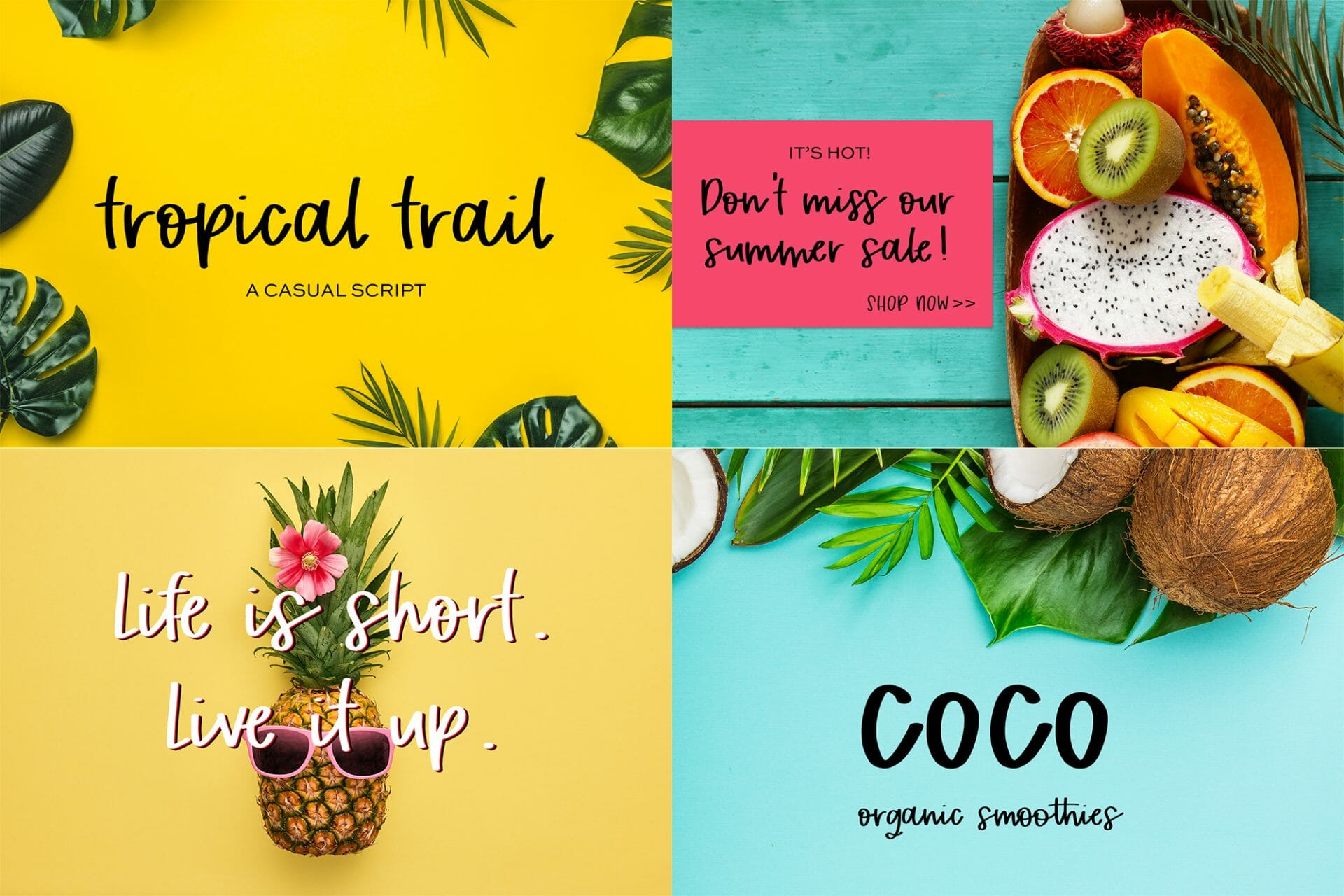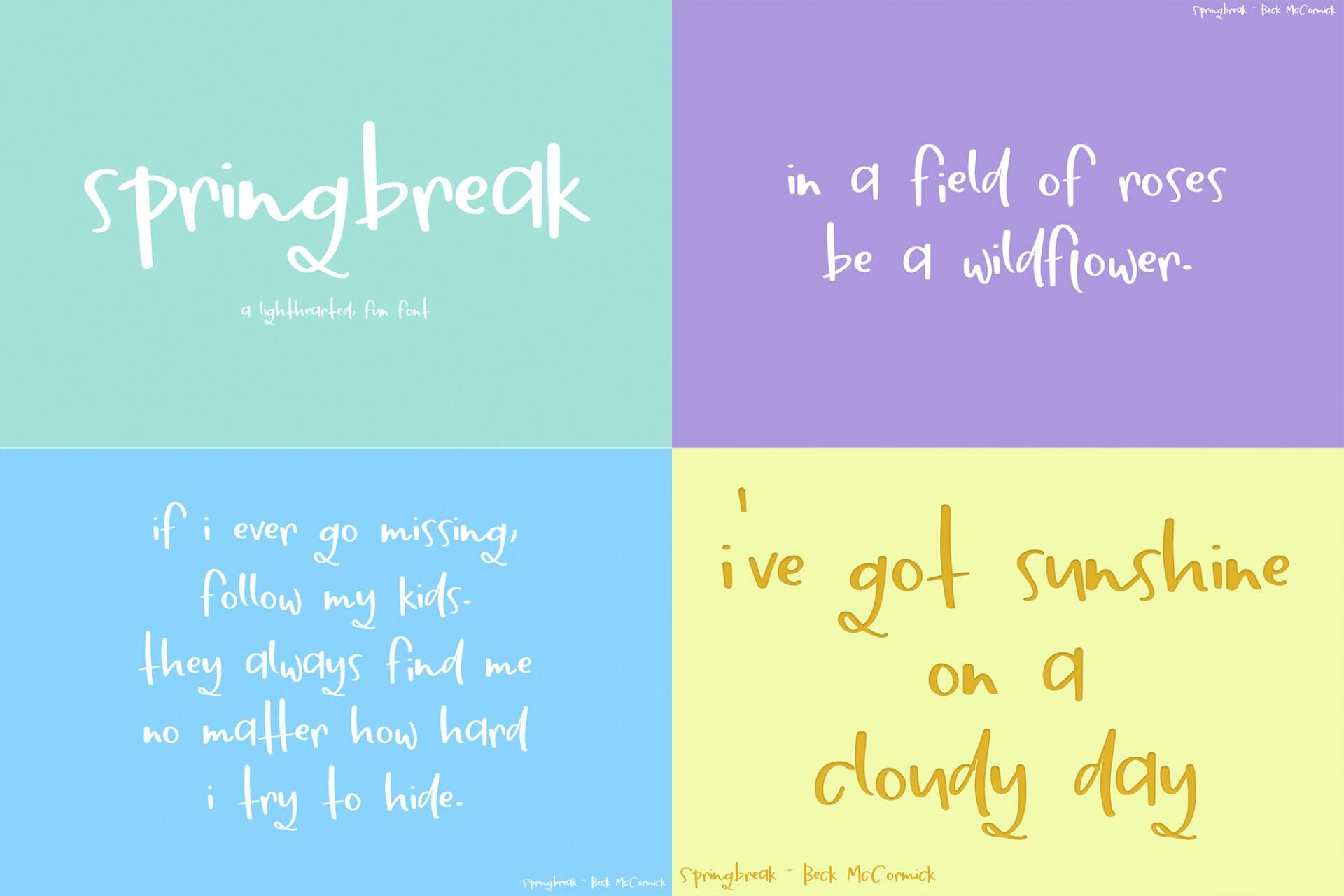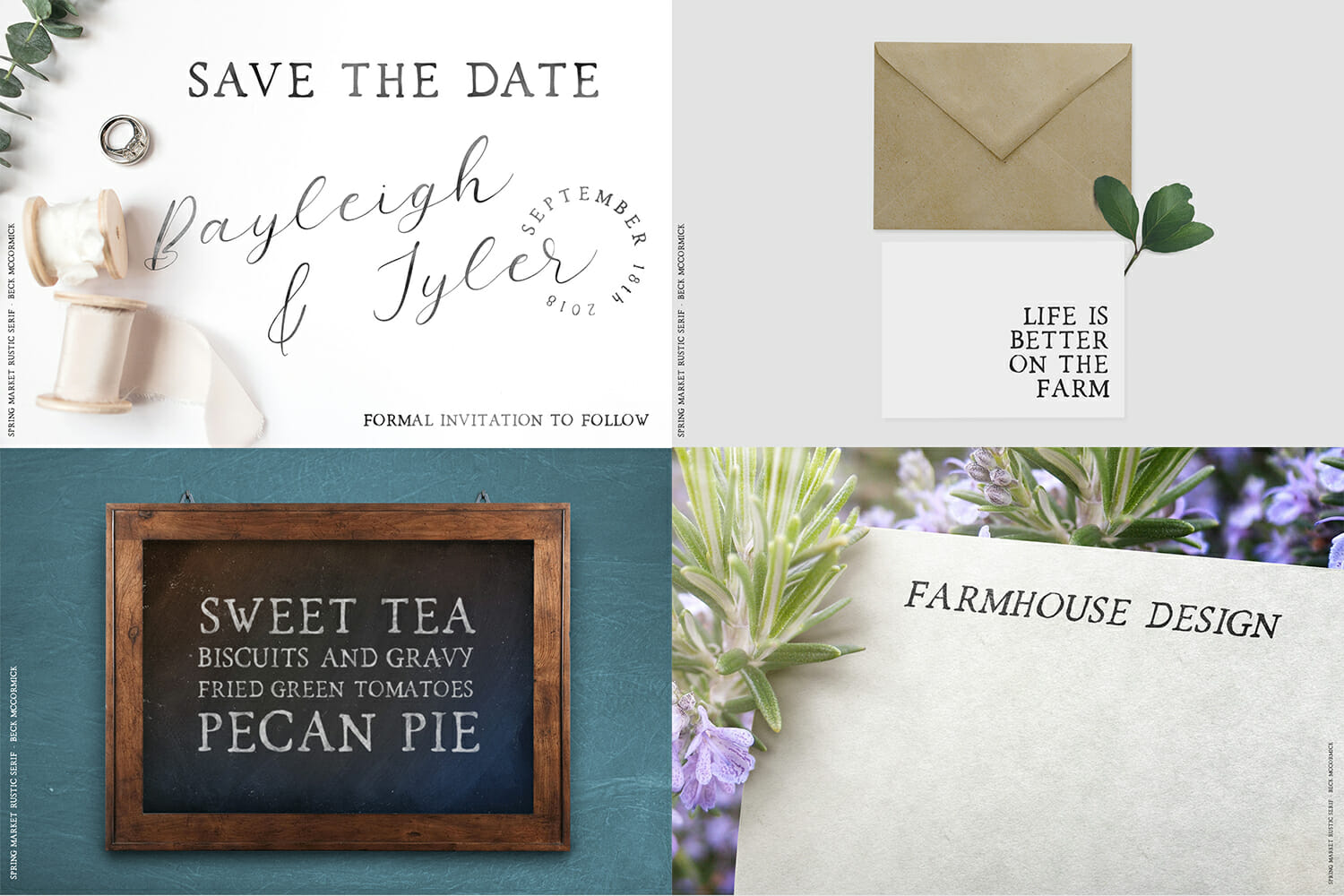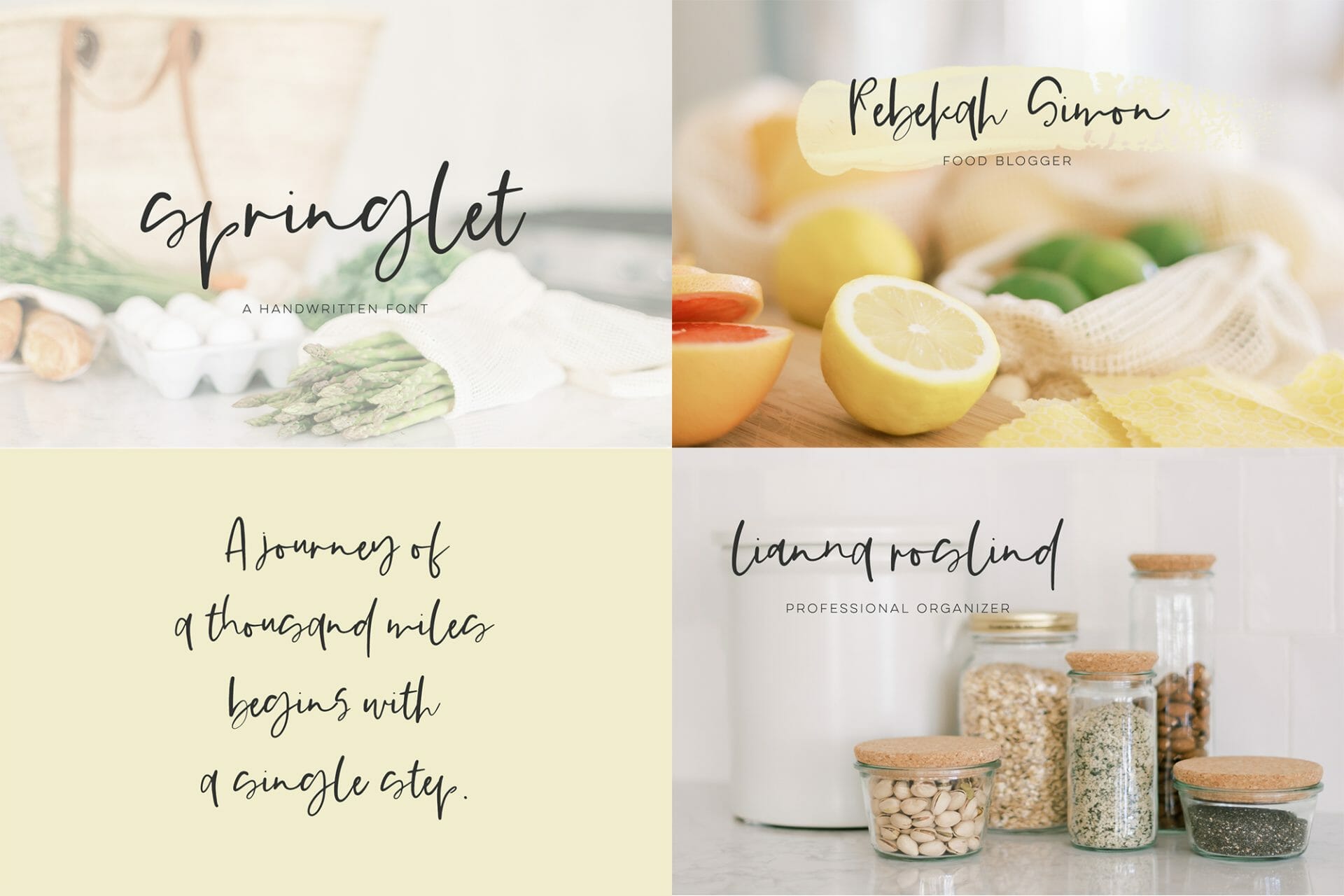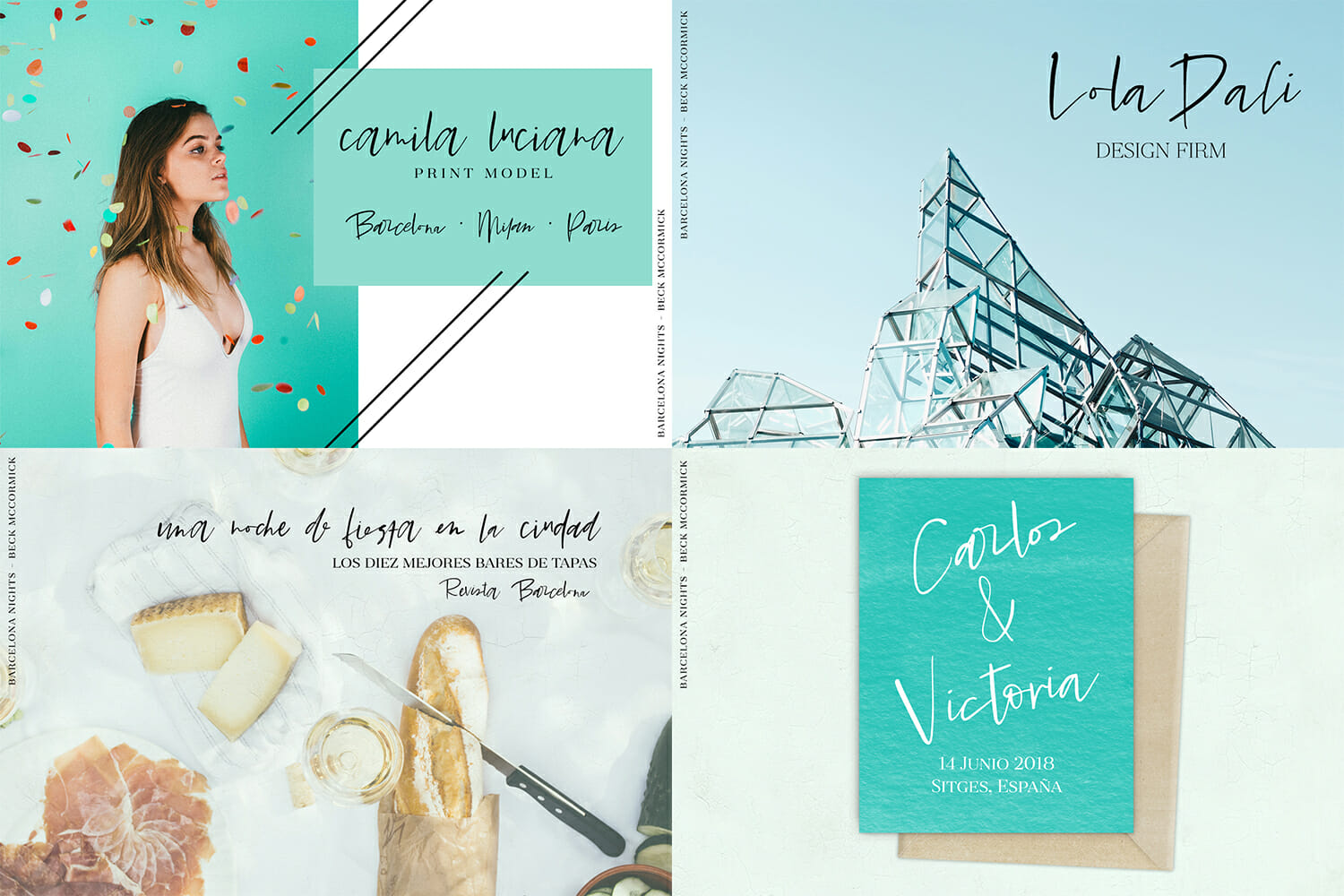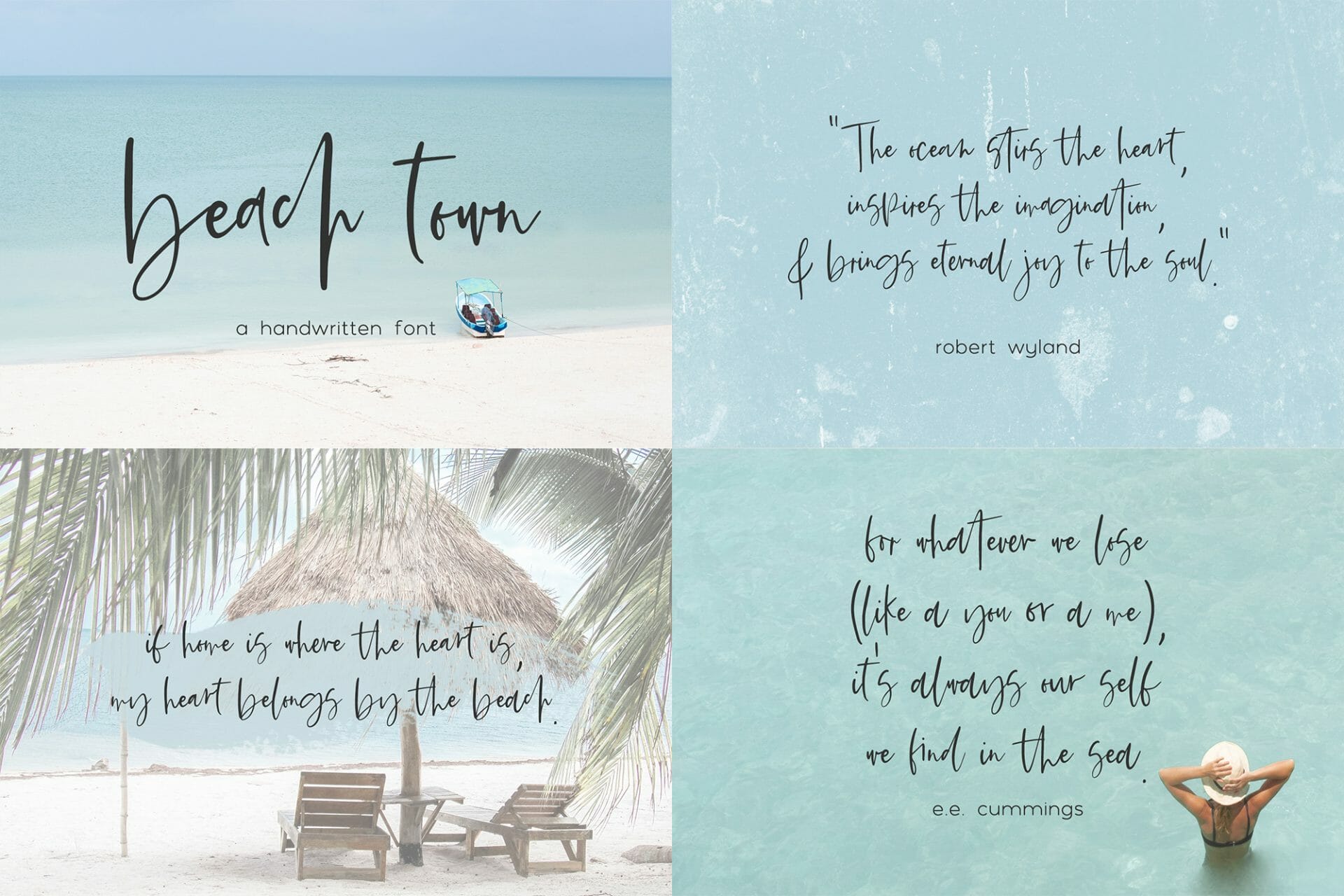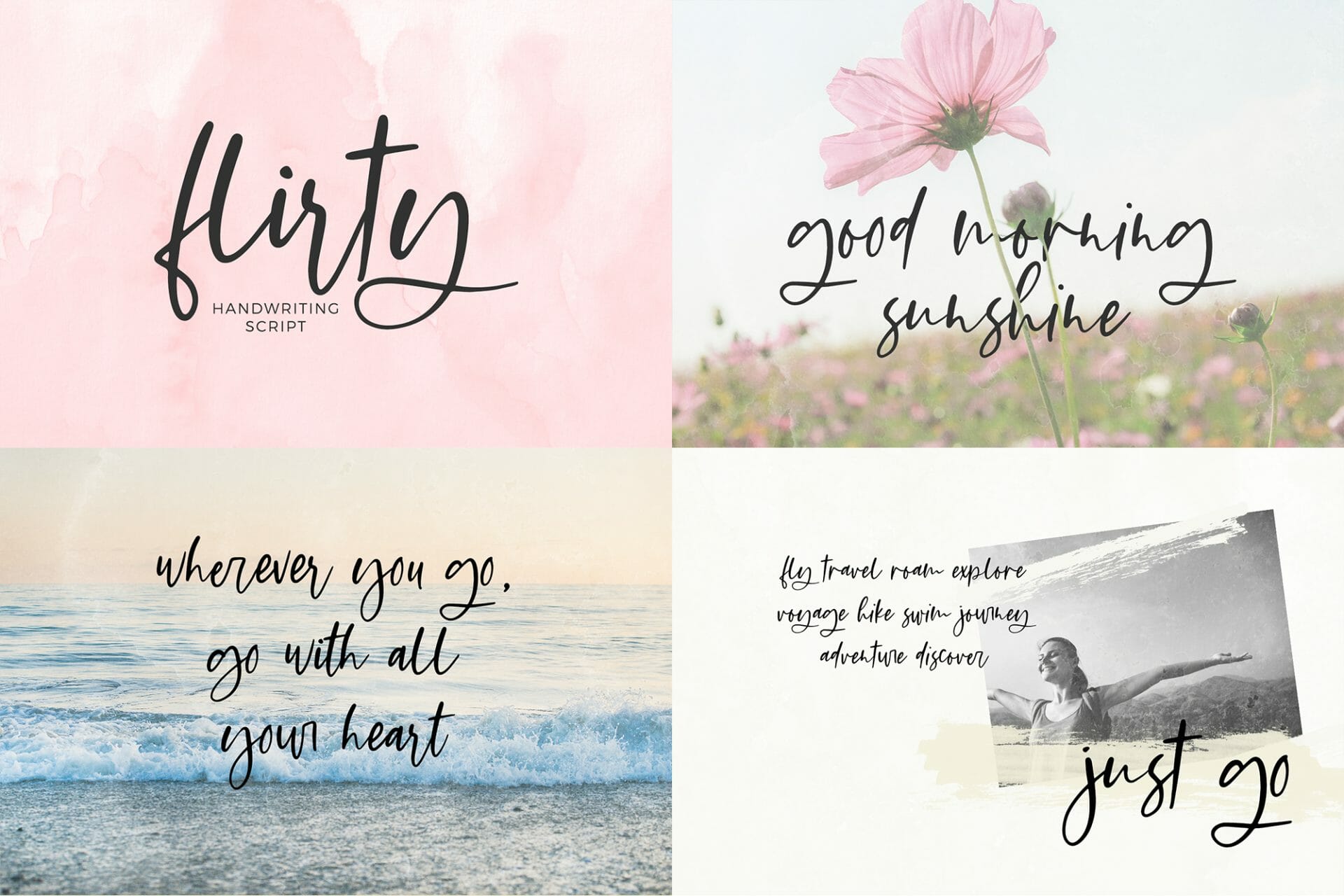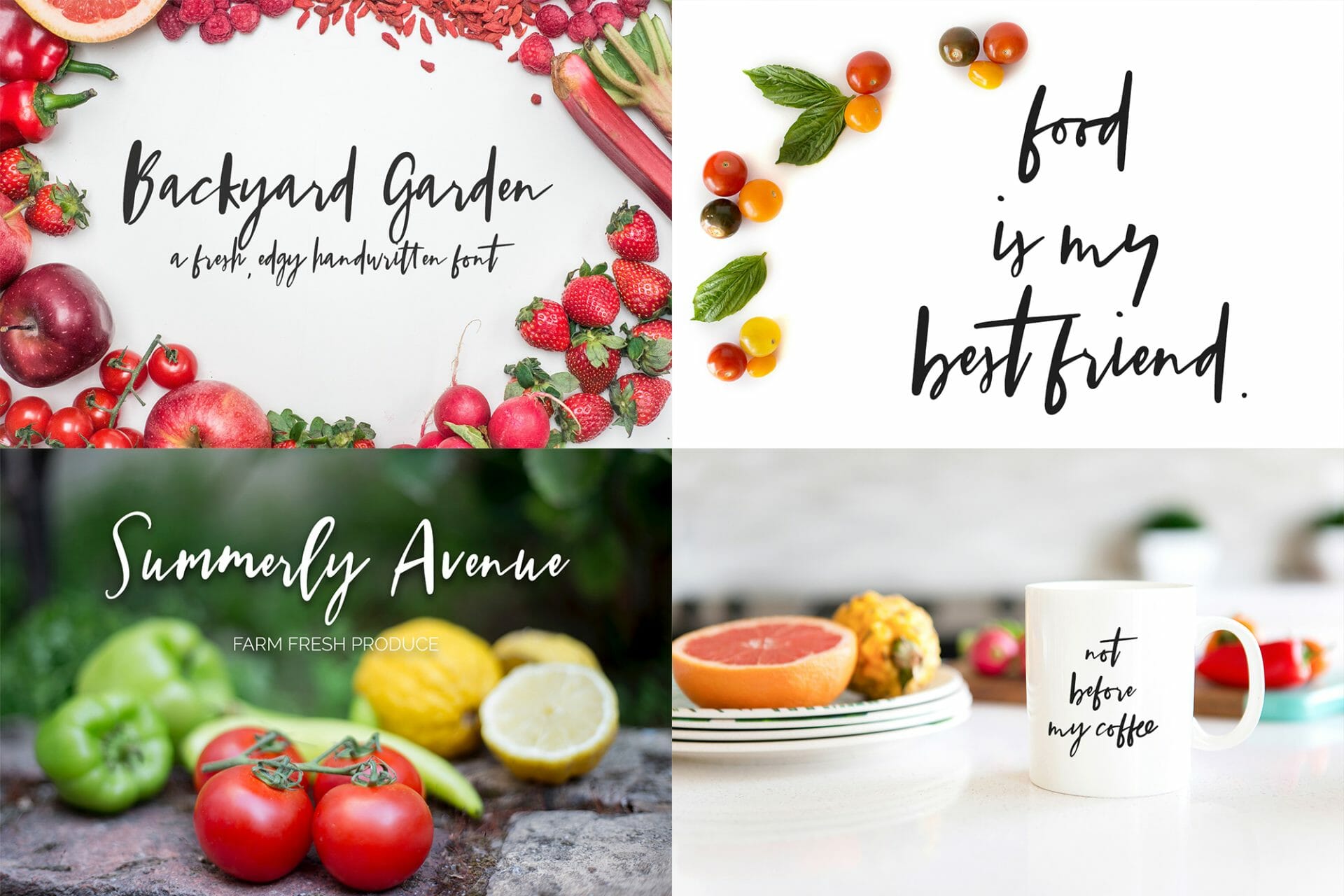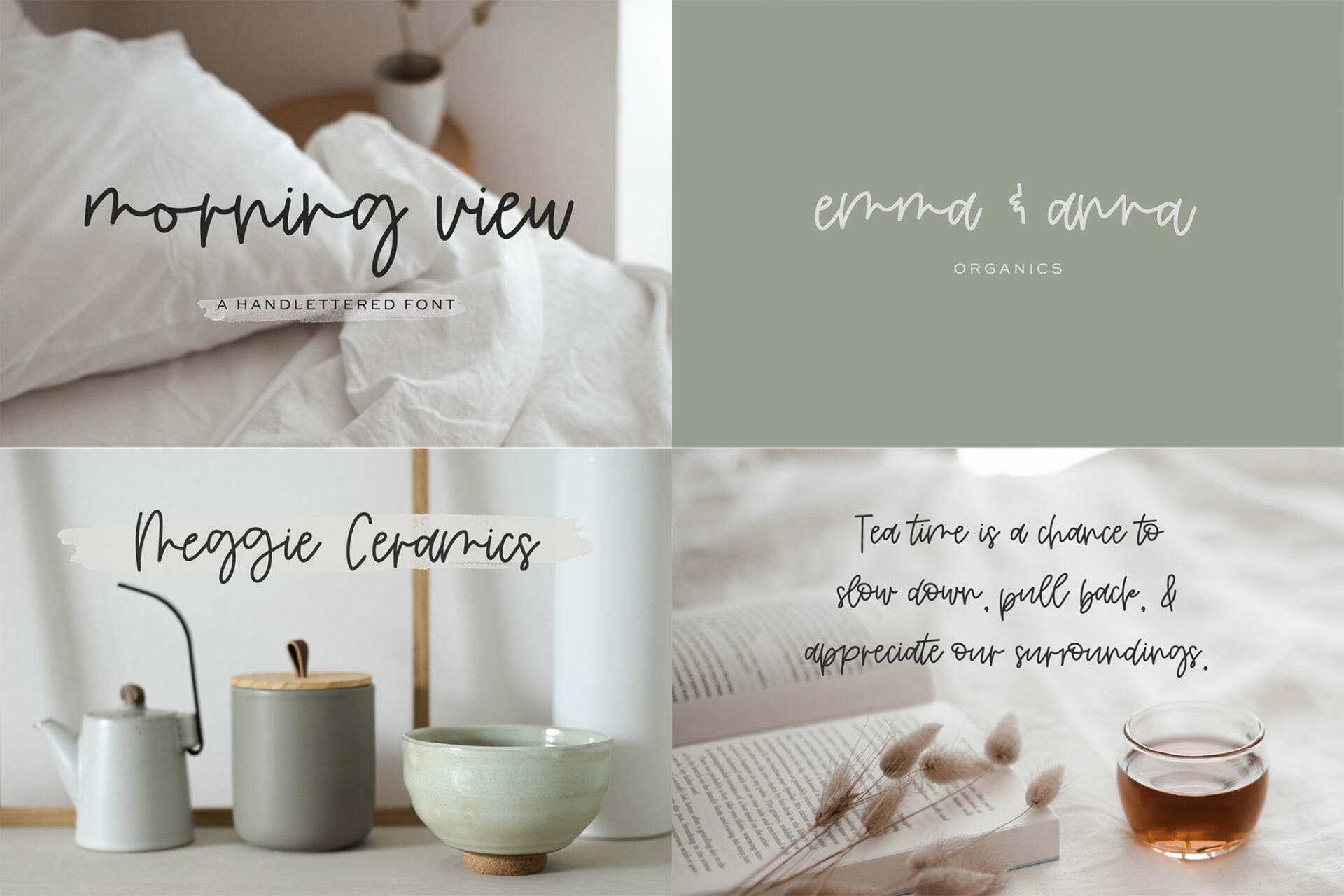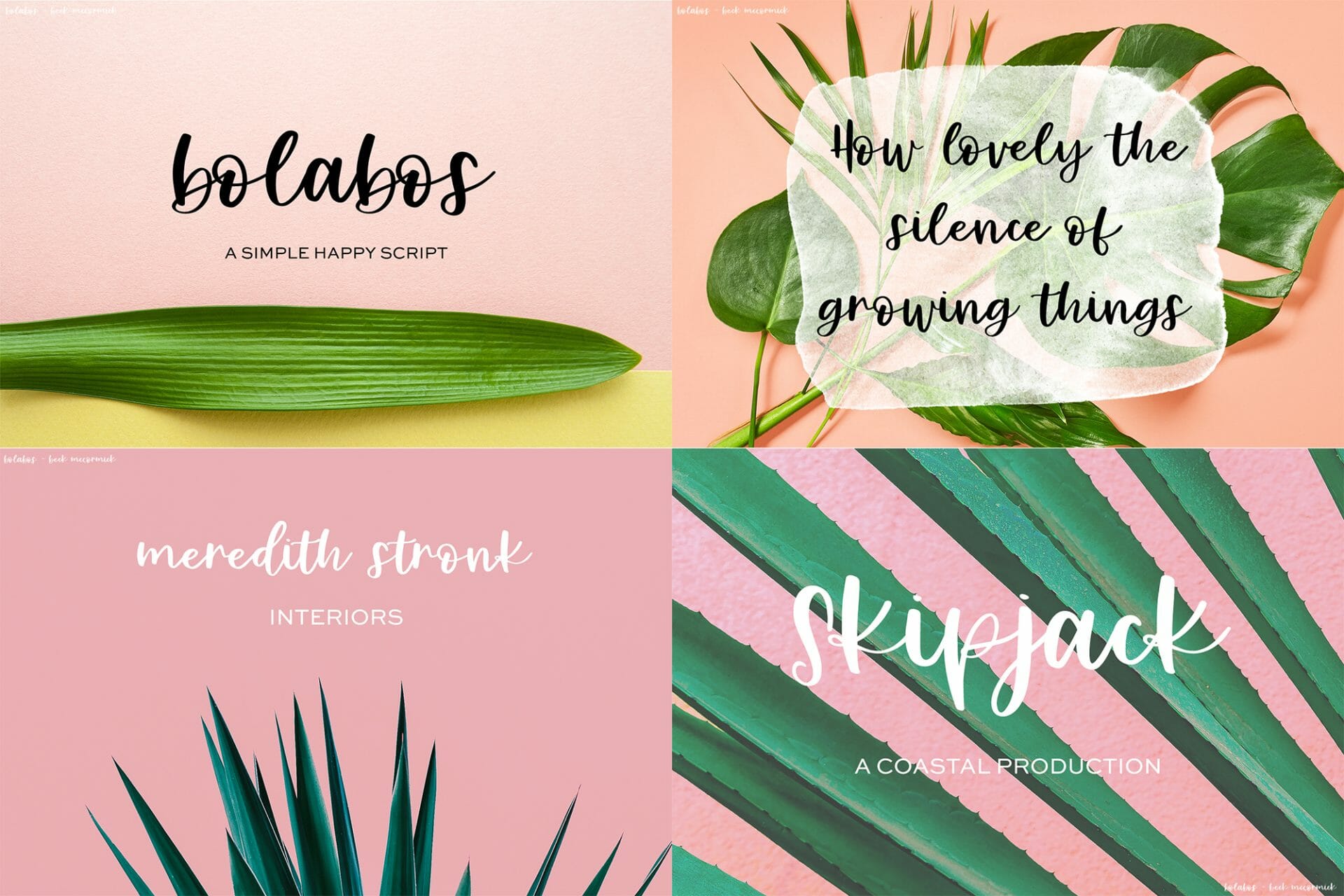
The Spring Font Bundle
Springlet Script
Barcelona Nights Script
Beach Town Script
Flirty Script
Backyard Garden Script
Morning View Script
Bolabos Script
Tropical Trail Script
Springbreak Script
Spring Market Script
Enjoy 10 beautiful handlettered fonts perfect for all types of spring-themed projects. All handlettered, these fonts will be perfect for greeting cards & designs, logos & branding, website elements, quote graphics, and crafting projects on your Cricut or Silhouette machine!
This bundle includes:
• Springlet Script
• Barcelona Nights Script
• Beach Town Script
• Flirty Script
• Backyard Garden Script
• Morning View Script
• Bolabos Script
• Tropical Trail Script
• Springbreak Script
• Spring Market Script